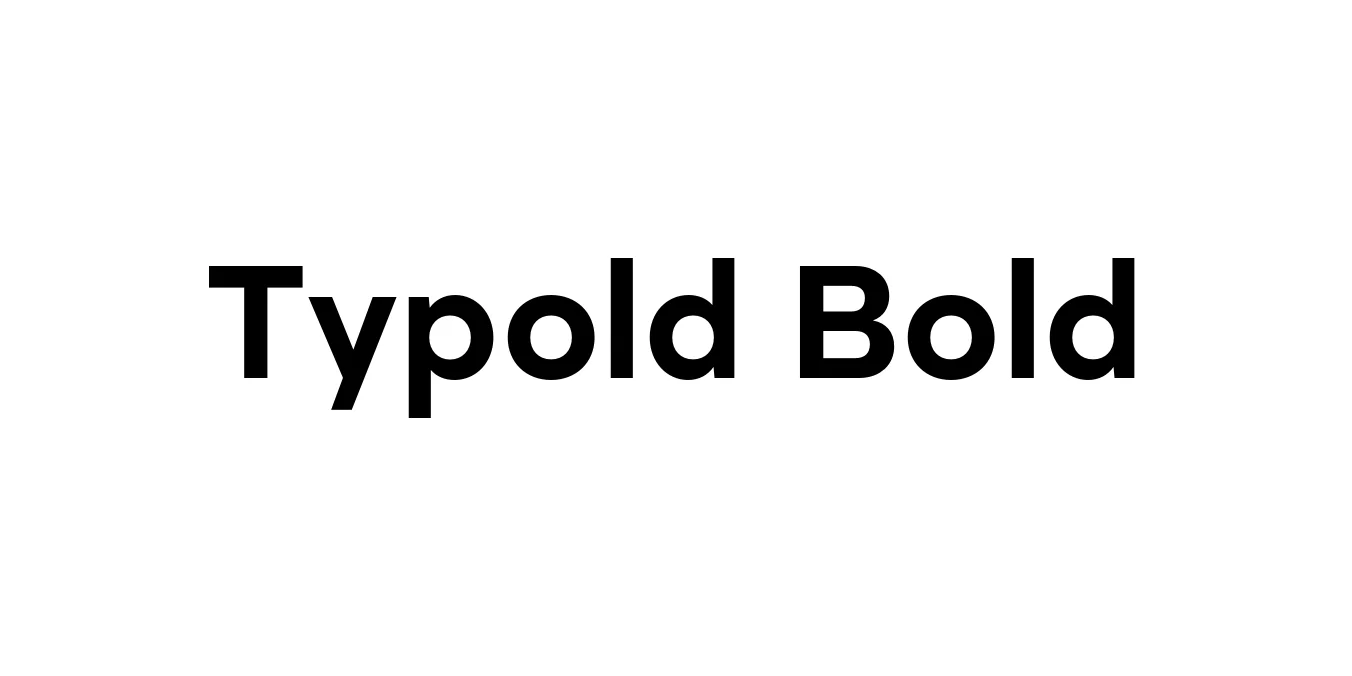
Typold Bold
Designed by Jonathan Hill
| Font Name | Typold |
| Category | Geometric Sans Serif |
| Designer | Jonathan Hill |
| Similar Fonts | Montserrat, Gotham, Futura, Proxima Nova |
Typold is a contemporary geometric sans-serif typeface designed by Jonathan Hill for The Northern Block. It evolved from the original Typold family, focusing on mathematical precision and balanced proportions to create a clean, modern aesthetic suitable for a wide range of digital and print media.
The Typold Bold weight is specifically engineered for high-impact communication. It maintains the family's hallmark clarity while providing the necessary weight for headlines and branding. Its structural integrity is built on a refined grid system, making it an excellent choice for complex information design and corporate identity systems.
Typold Bold Best Uses
Perfect for grabbing attention in editorial and web design.
Ideal for creating strong, memorable corporate identities.
Excellent for signage due to its clear, bold legibility.
Optimized for readability in high-resolution digital interfaces.